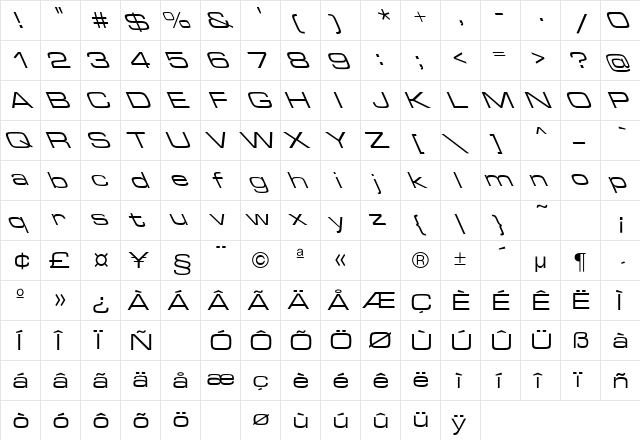
Eurostile Extended-Roman-Lefty Regular
Eurostile Extended-Roman-Lefty offers clean, dependable letterforms without strong stylistic allegiance, making it a practical choice for designers who need flexibility.